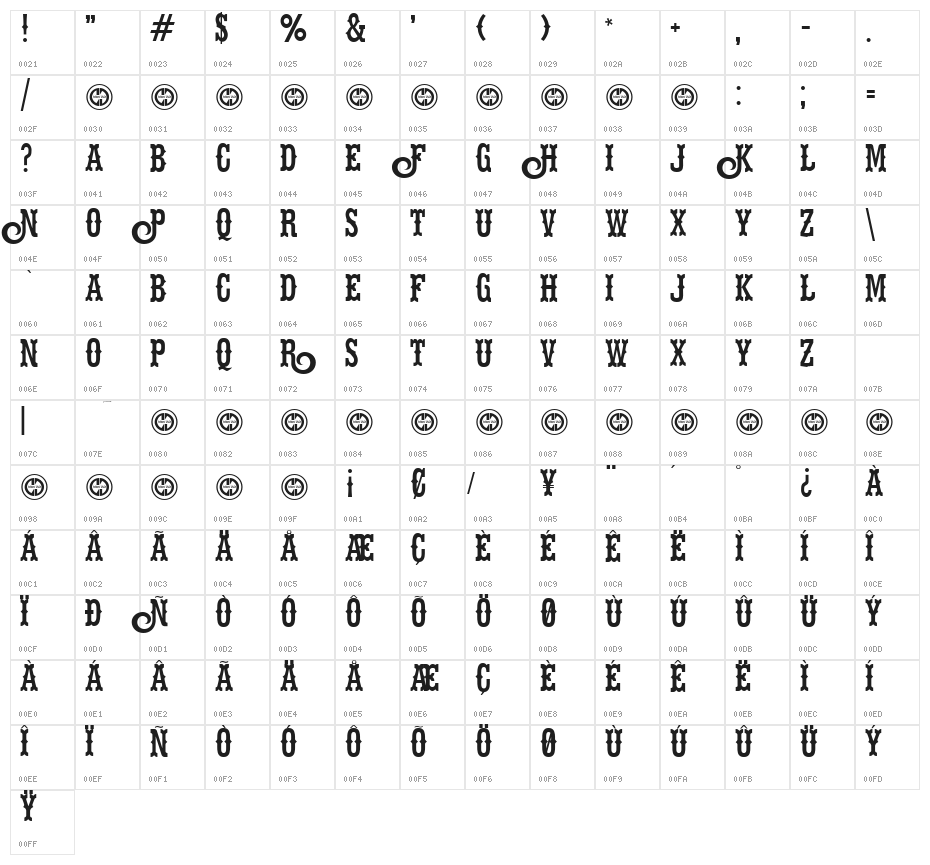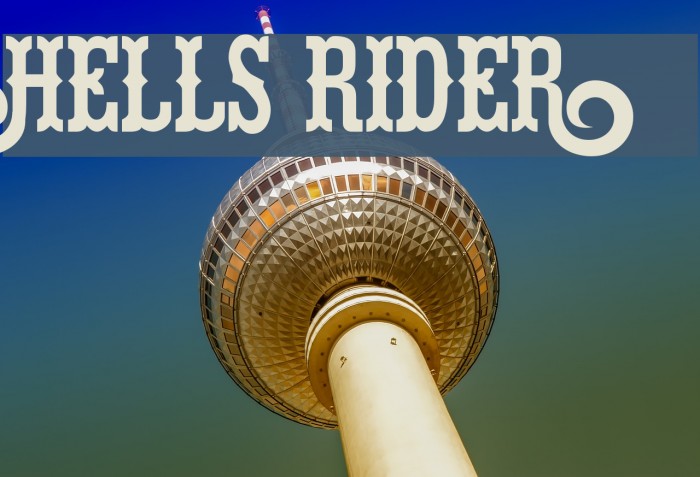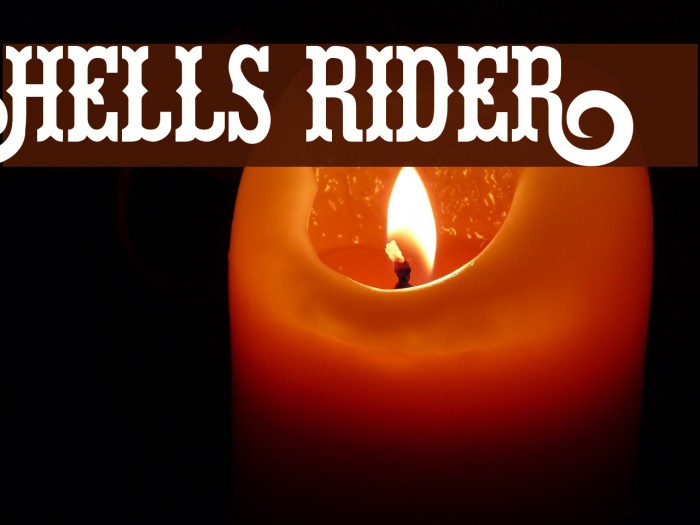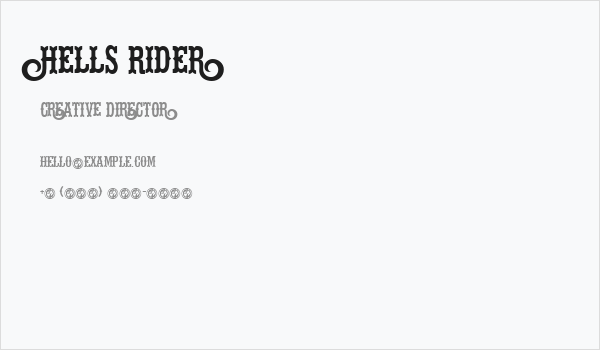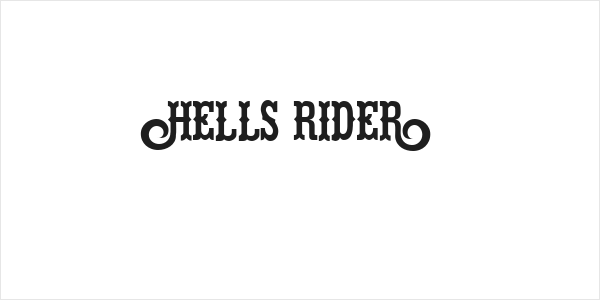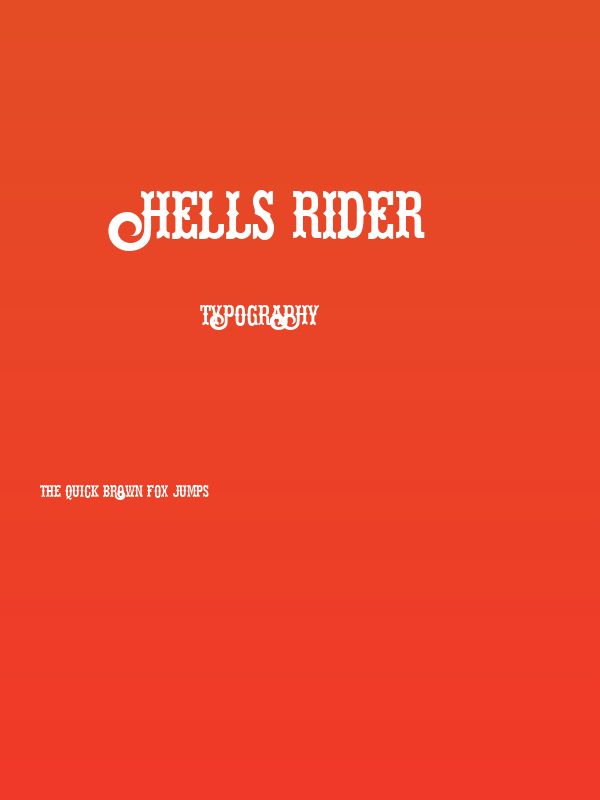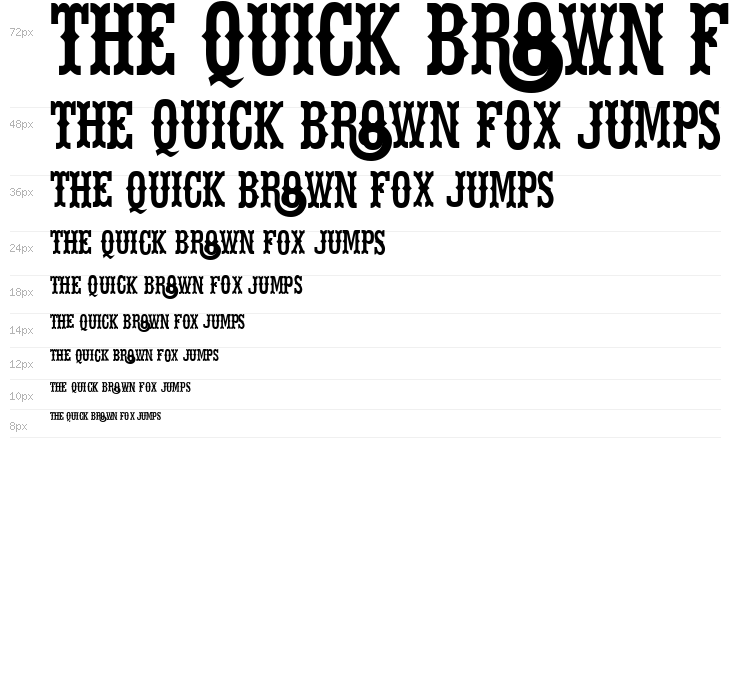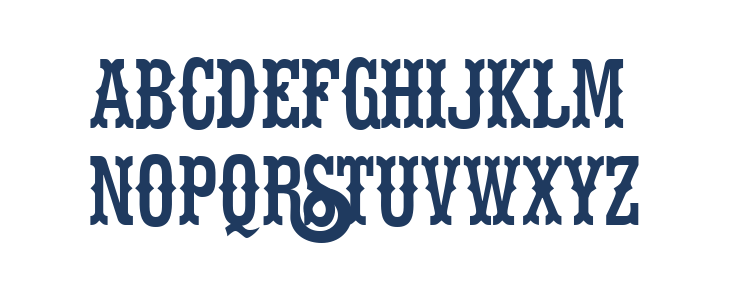
Hells Rider Font
Hells Rider Description
This font features a bold and striking design with a strong presence, characterized by thick, blocky serifs and a slightly condensed structure. The uppercase letters are robust and commanding, while the lowercase letters maintain a consistent weight and style. The numbers and special characters are equally bold, ensuring a cohesive look across all text. The font's design is reminiscent of vintage western typography, with a modern twist that makes it suitable for a variety of applications. Its high contrast between thick and thin strokes adds to its dramatic appearance, making it ideal for attention-grabbing headlines and titles.